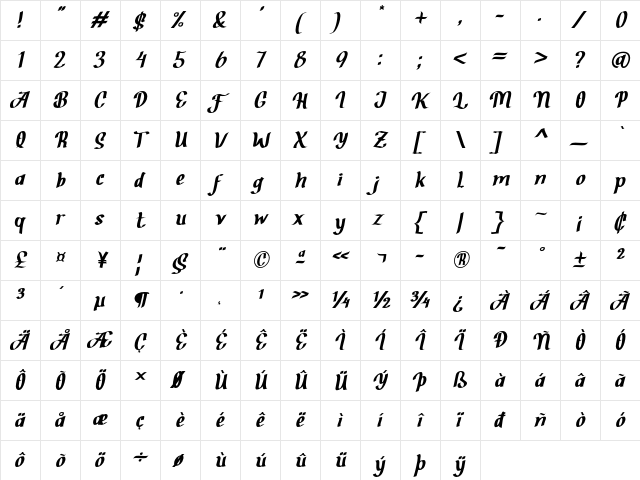
Brother Zoned Italic
Design Context for Brother Zoned Typeface
Brother Zoned takes a measured approach to typography — its balanced proportions and neutral character make it a reliable workhorse for both digital and print work. The dynamic lean of this cut emphasises speed and emphasis in any layout.
Pro Tip: Use Brother Zoned for emphasis, pull quotes, and subheadings where its slanted energy can add rhythm to the layout.